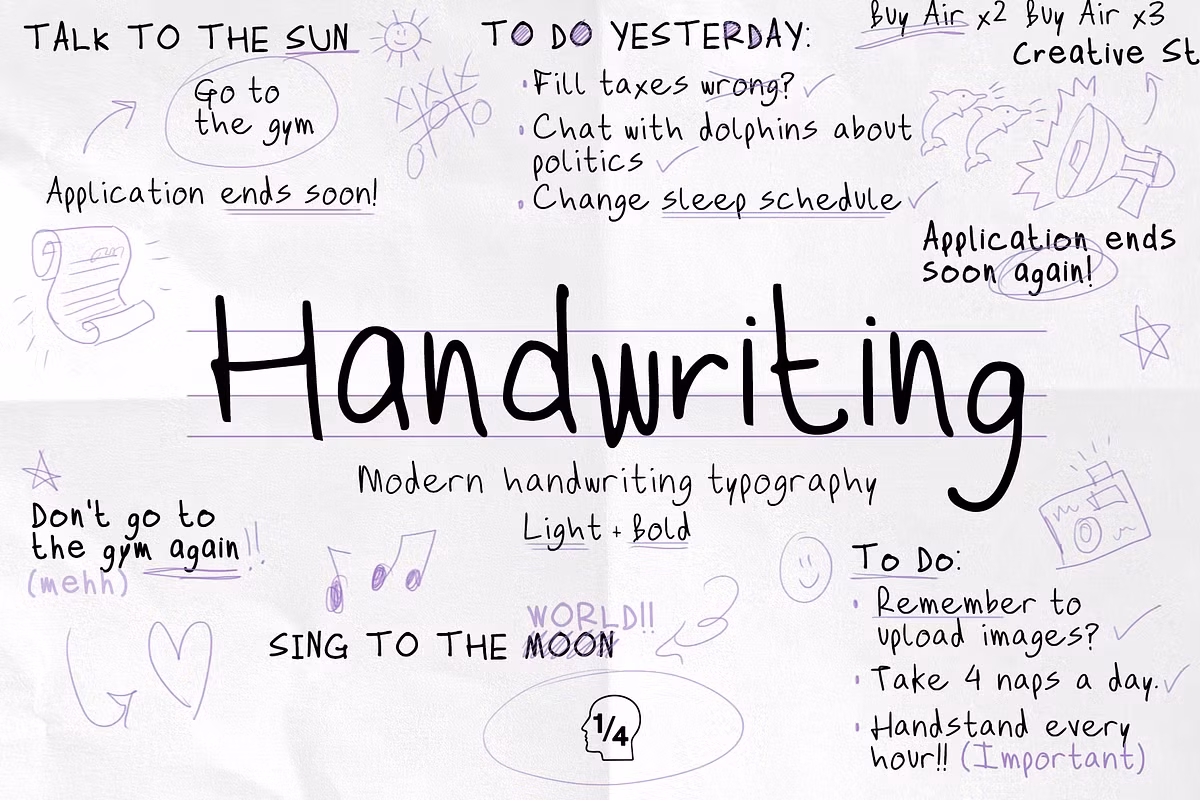
Please note that you must purchase this font for commercial use. You can download Handwriting Font for free, strictly for personal testing purposes only. Handwriting Font is a charming, expressive script font that mimics the natural flow of hand-drawn letters. With its organic, imperfect strokes and unique character, Handwriting Font Free Download is perfect for projects that need a personal, casual, and creative touch, such as greeting cards, invitations, branding, social media posts, and more.
This font gives your designs a warm, human feel, making it ideal for anything that requires an authentic, handwritten look. It includes uppercase and lowercase letters, numerals, punctuation, and multilingual support, providing versatility for a wide range of creative projects.
Whether you're designing for a whimsical brand, crafting custom stationery, or adding a personal touch to your project, Handwriting Font adds personality and creativity to your typography.